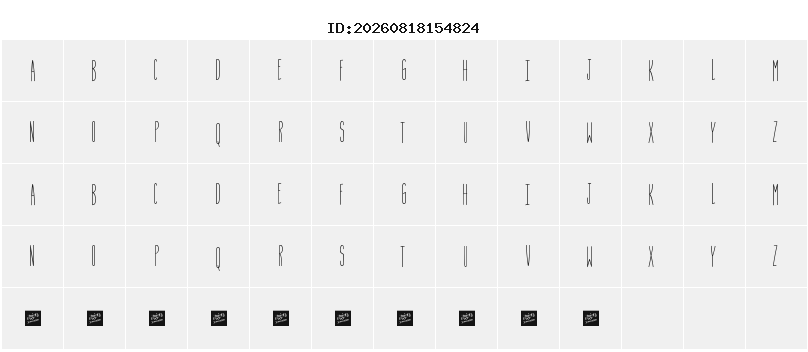
Slim Chef Preview
• Font Name: Slim Chef
• Full Font Name: Slim Chef
About Slim Chef.ttf
Slim Chef.ttf is a modern, elegant sans-serif font designed for ultimate readability and visual harmony. Perfect for branding, headlines, web design, and print materials.